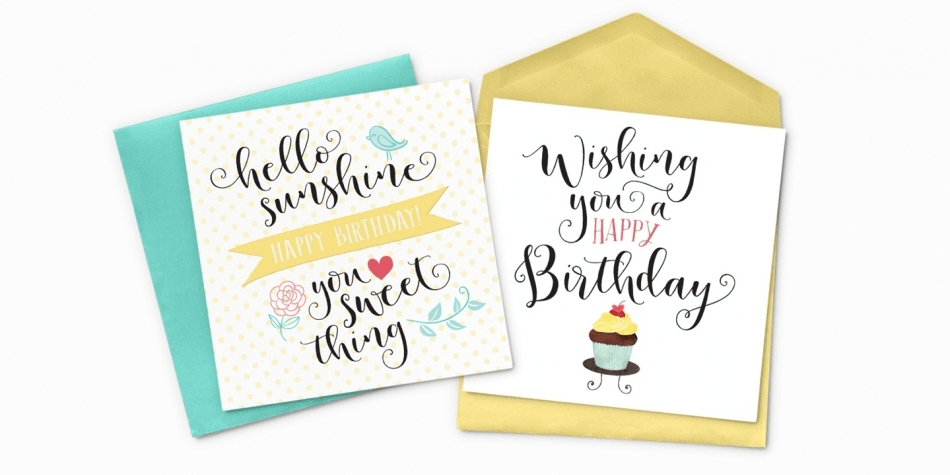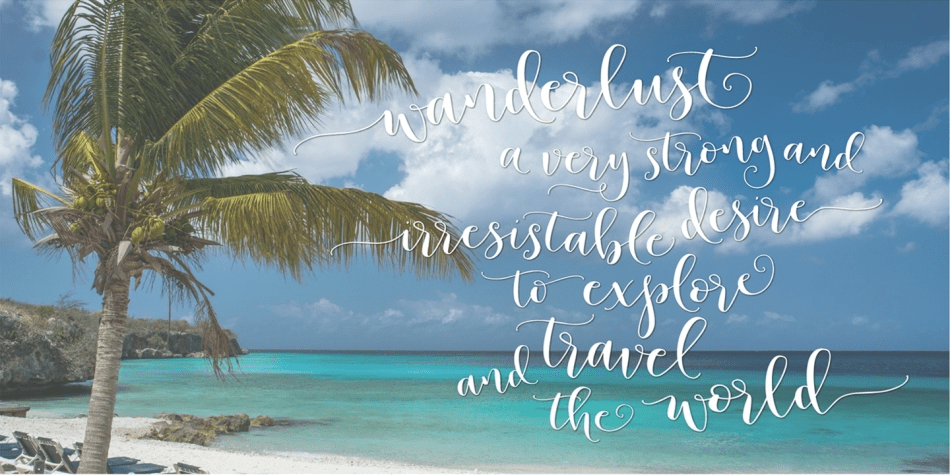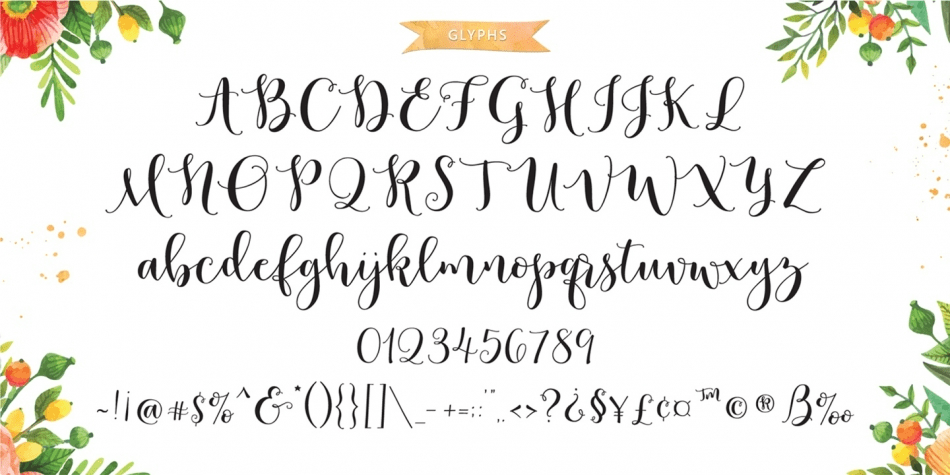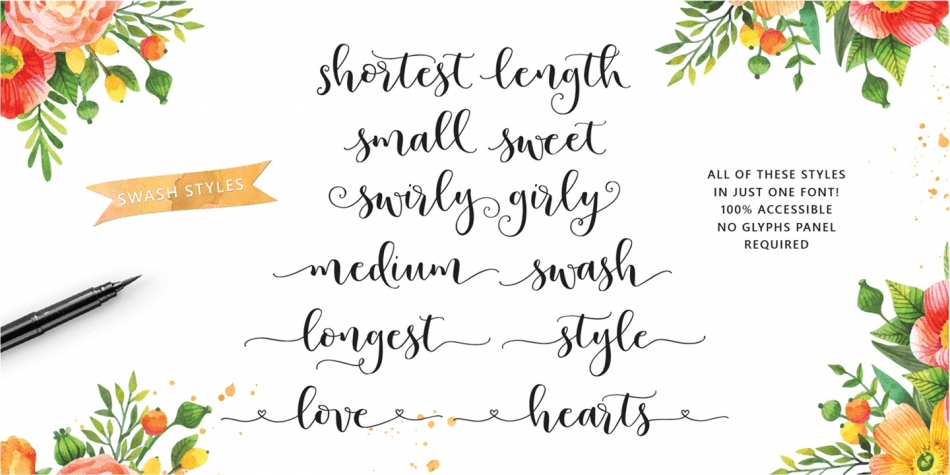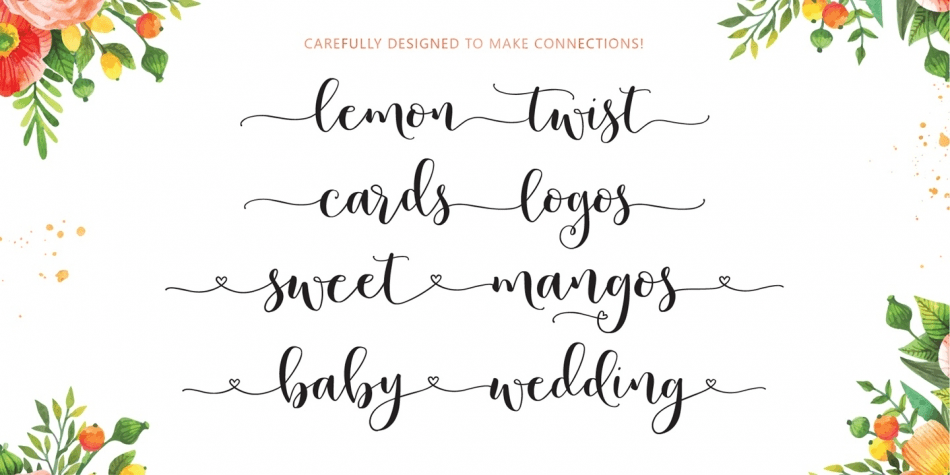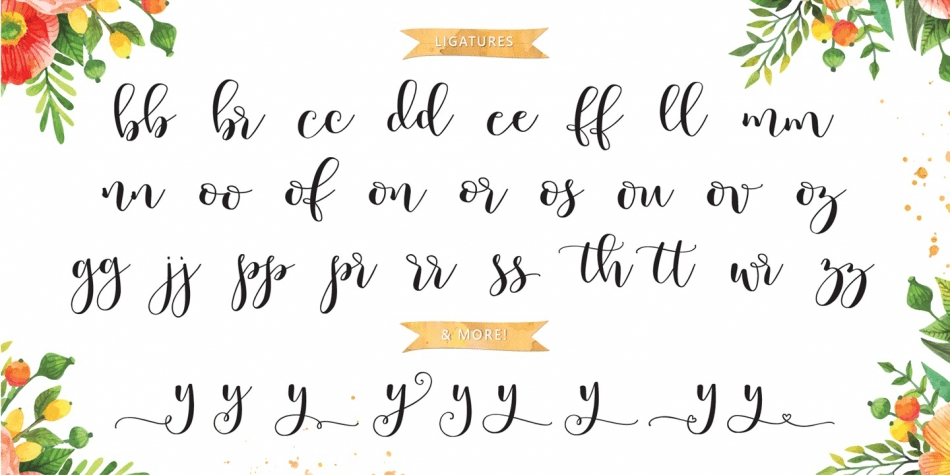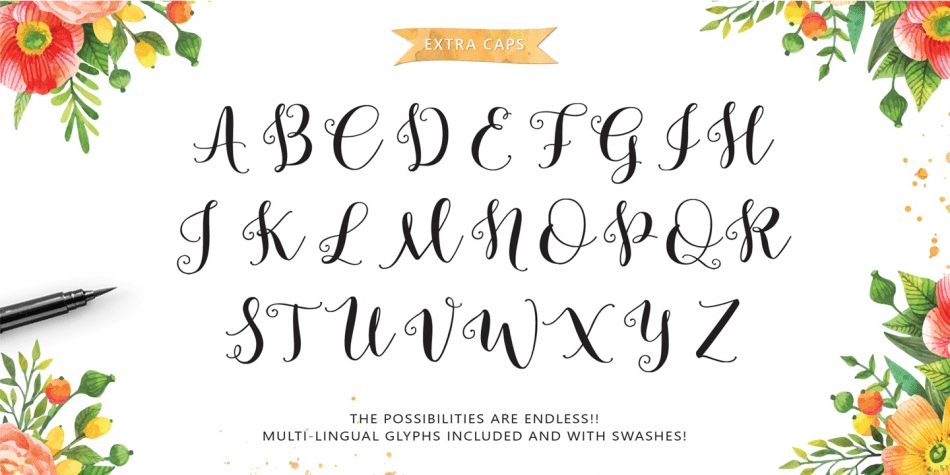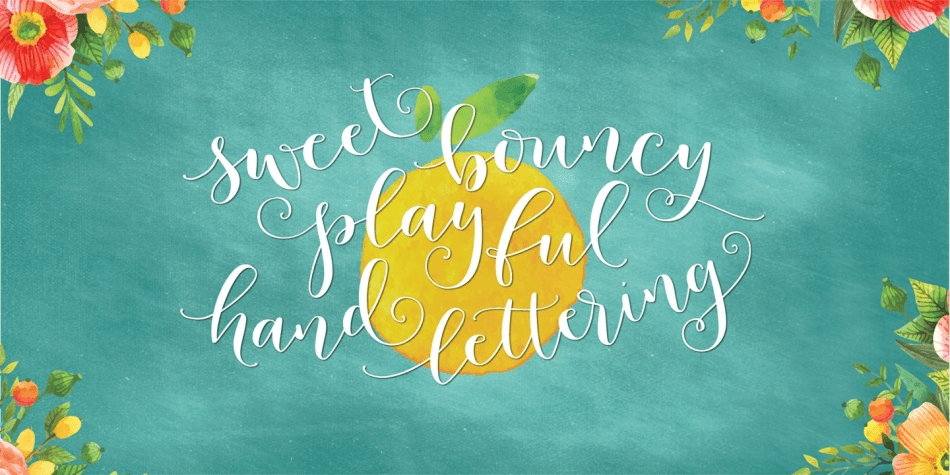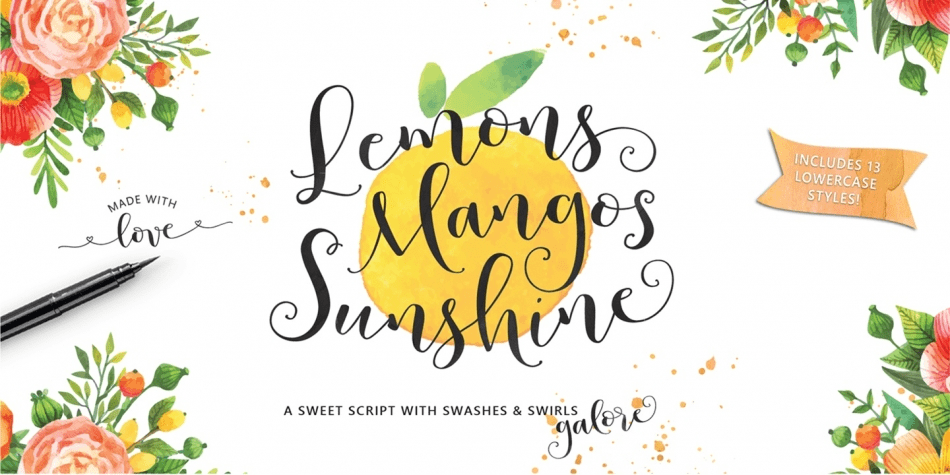
Lemons Mangos Sunshine
Designed by Emily Spadoni, Lemons Mangos Sunshine is a modern calligraphy font family. Carefree and bouncy, she is perfect for when you need just the right font for that baby announcement or greeting card! Includes an entire produce department of ligatures…